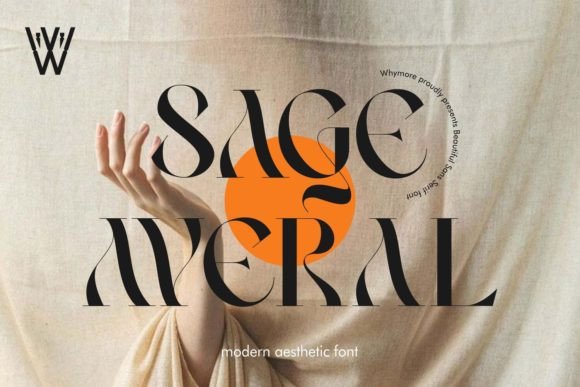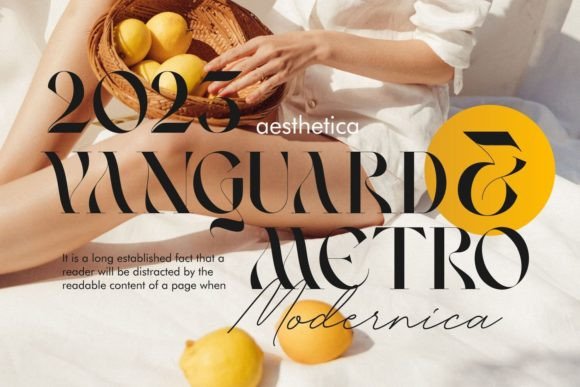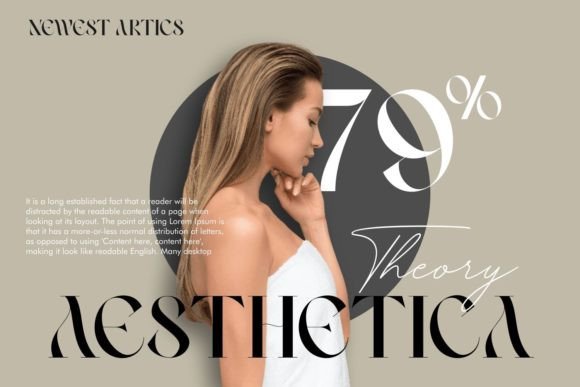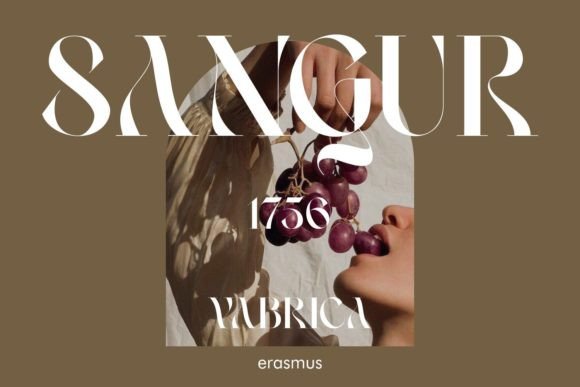
Sage Averal Font
About the Sage Averal Font
Introducing the Sage Averal Font, a beautifully crafted typeface designed to elevate your creative projects. SageAveral is an elegant and bold serif font. Fall in love with its incredibly versatile style and use it to create gorgeous wedding invitations, beautiful stationary art, eye-catching social media posts, and much more!
Sage Averal excels in display applications such as headlines, logos, and short-form text on packaging or posters. Its elegant boldness commands attention but its serif detail prevents it from being overwhelming. Avoid using it for body text or long paragraphs; the weight and detail would strain readability.
The font’s personality is sophisticated yet approachable. It suits brands aiming for a timeless, high-quality feel, perhaps in the luxury goods, fashion, or beauty sectors. It projects confidence without being overly aggressive.
Consider pairing Sage Averal with a clean sans-serif like Open Sans for body copy to create contrast and enhance readability. For a more playful feel, a handwritten script font could complement its elegance. A geometric sans-serif would provide a modern counterpoint, suitable for projects needing a touch of contemporary edge.
Sage Averal Font Usage Examples
Sage Averal Font Example